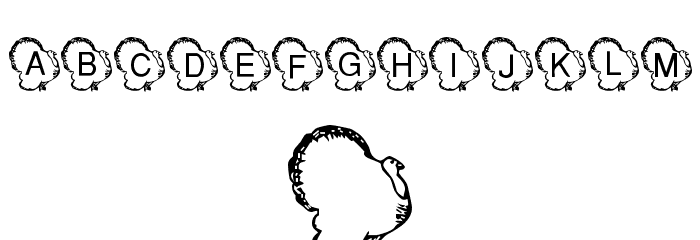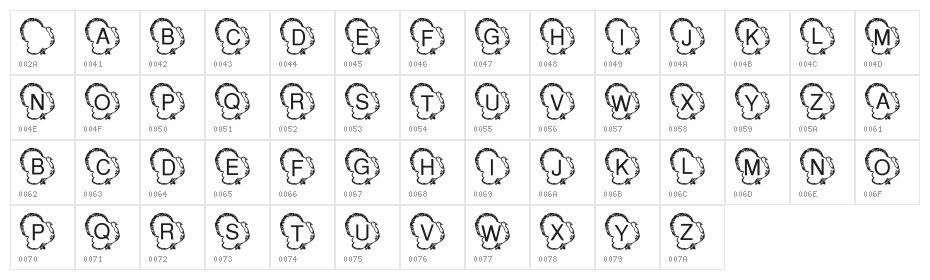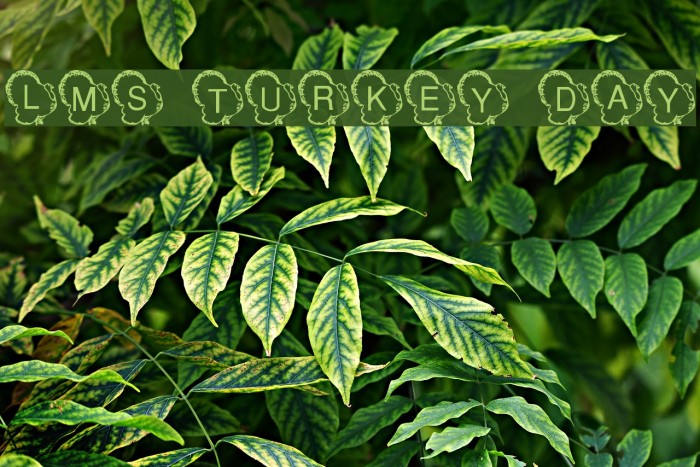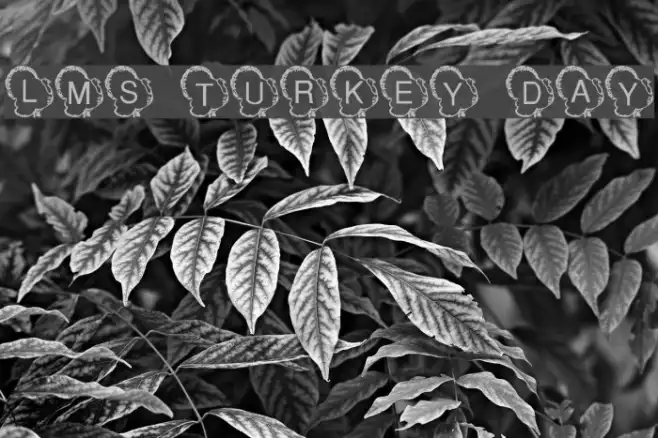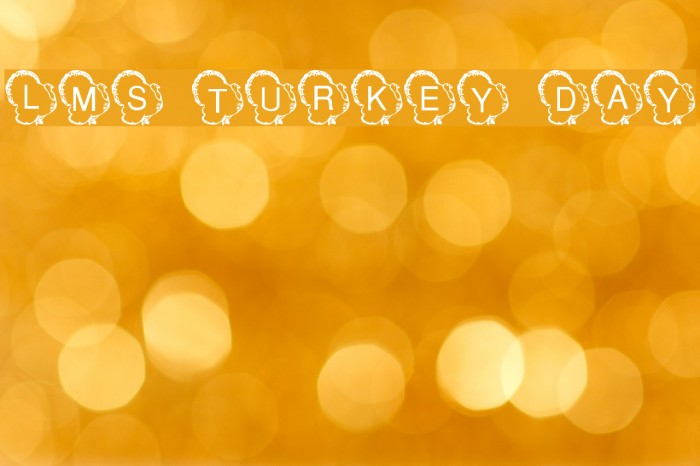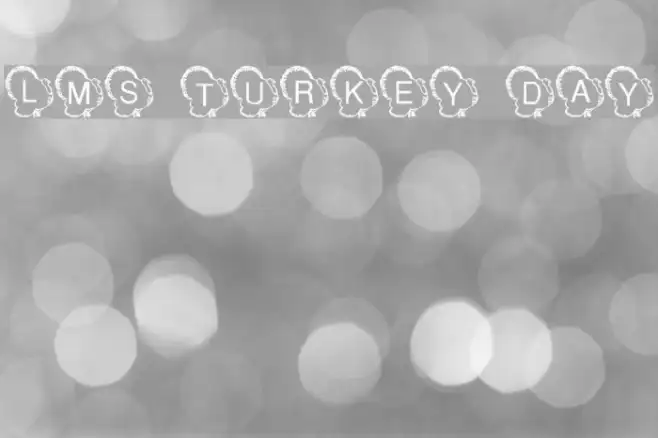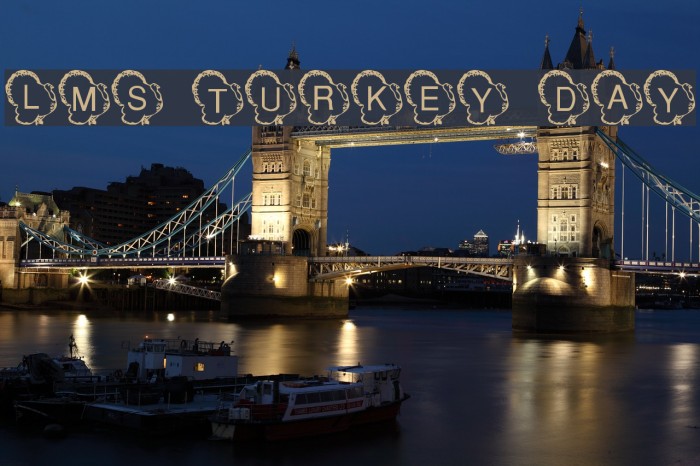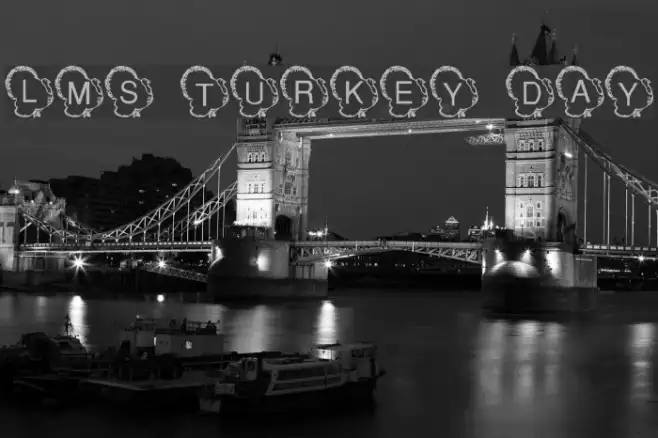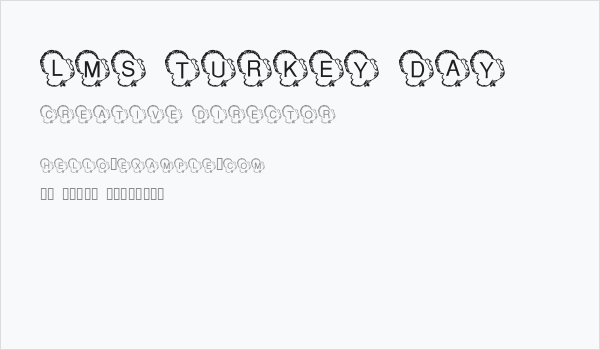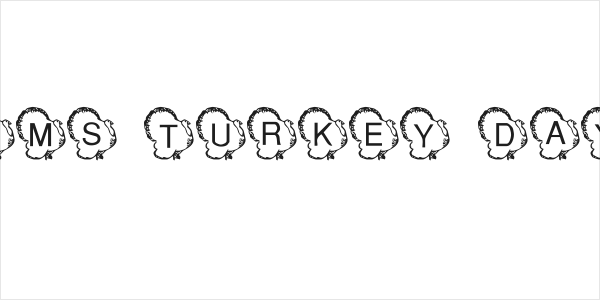
LMS Turkey Day Font
LMS Turkey Day Description
This playful and festive font features each letter encased within a turkey silhouette, adding a whimsical touch perfect for holiday-themed projects. The letters are bold and clear, ensuring readability despite the decorative elements. The turkey design is consistent across all characters, providing a cohesive look. This font is ideal for Thanksgiving-themed designs, invitations, and crafts, bringing a sense of fun and celebration to any project.
| Use Case | Headlines, Logos, Decorative text |
| Proposed Projects | Ideal for Thanksgiving invitations, holiday cards, festive banners, and seasonal crafts. |